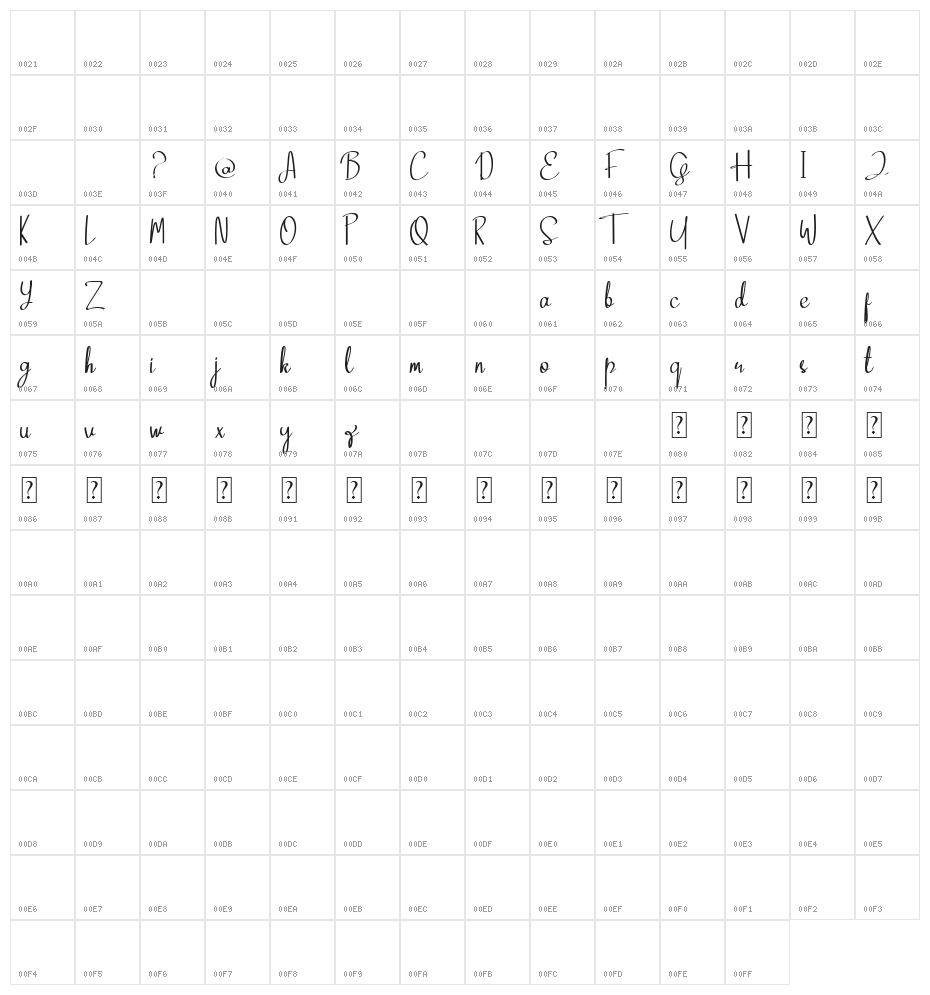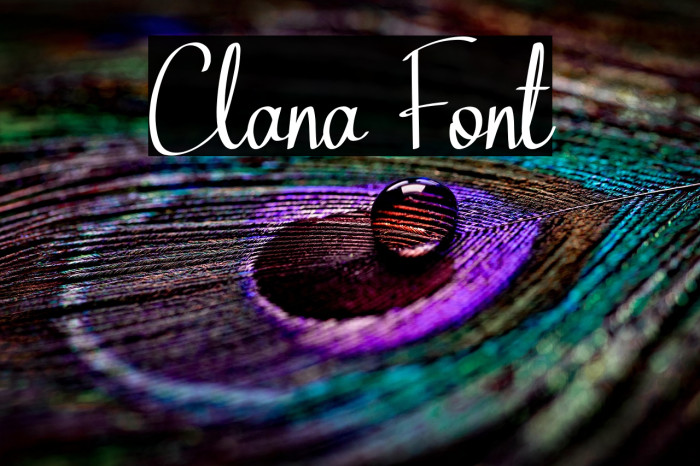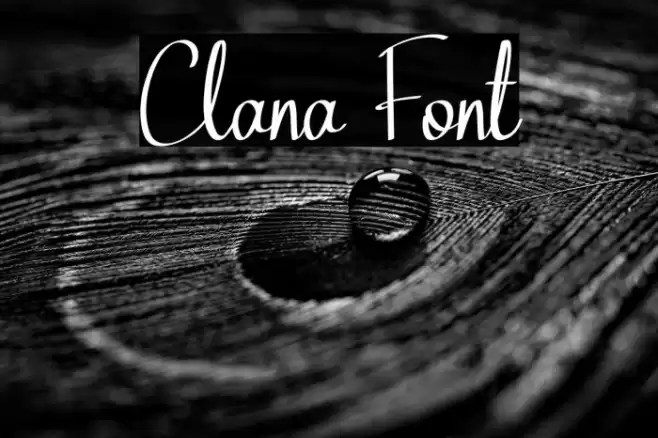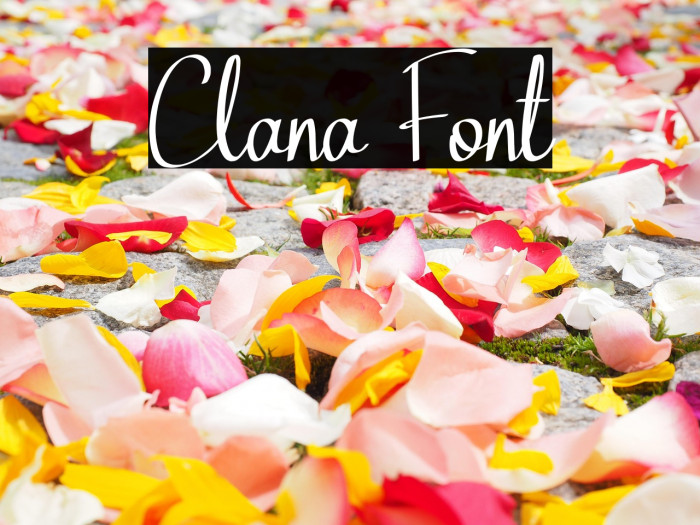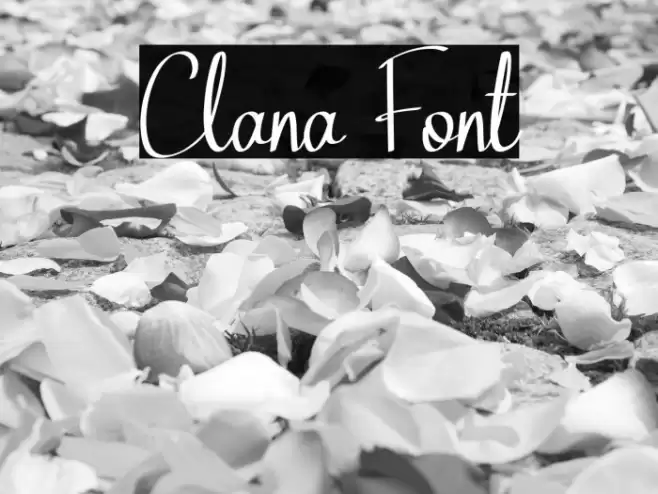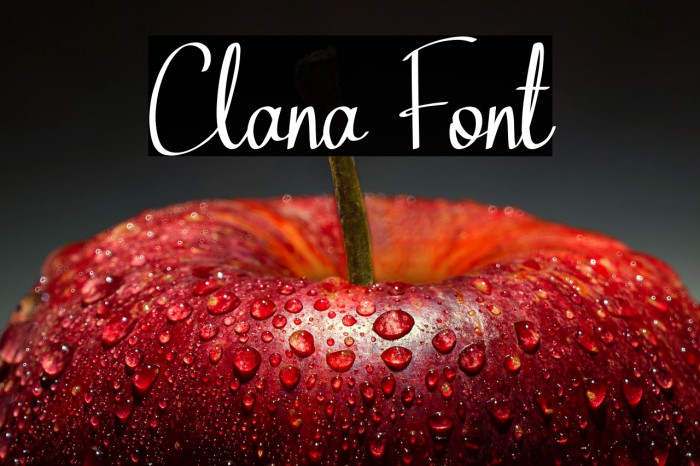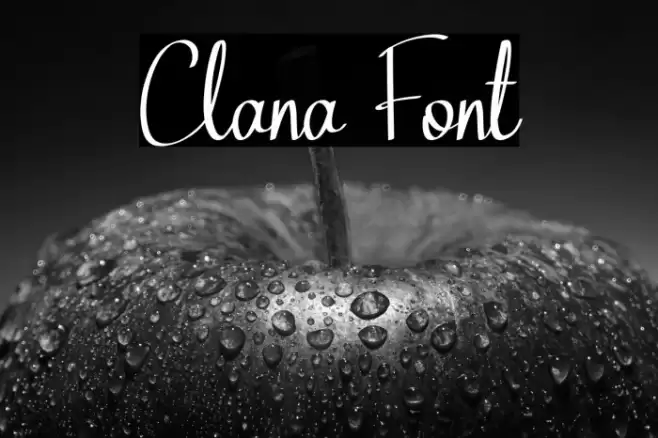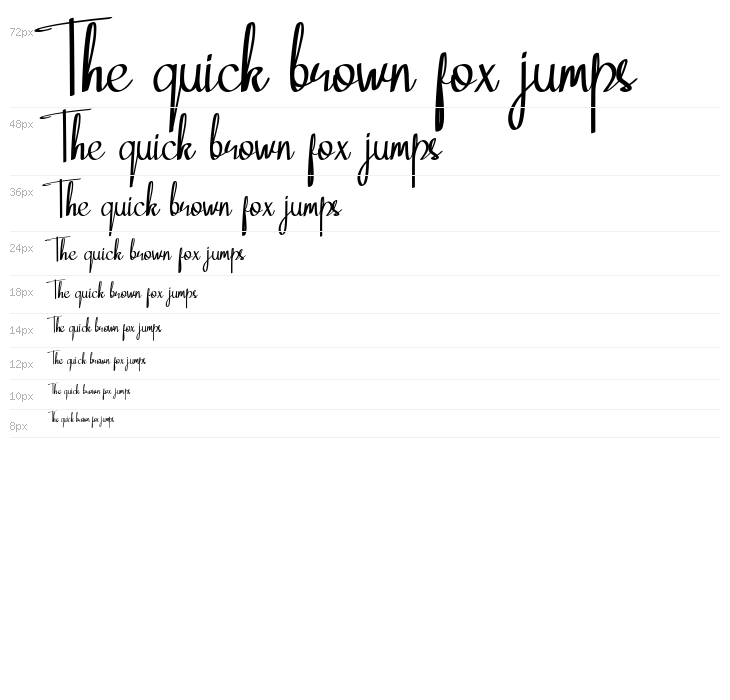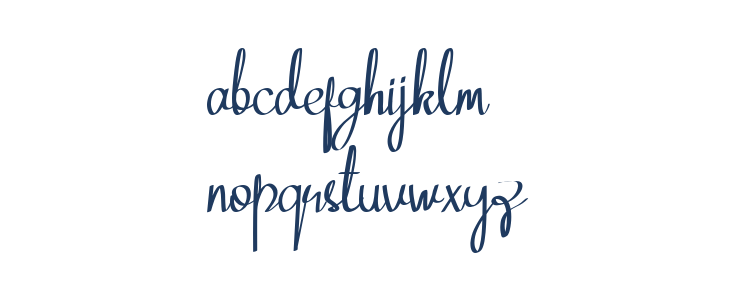
Clana Font
Clana Description
This font features a playful and artistic script style with a handwritten appearance. The uppercase letters are tall and elegant, with a slight slant that adds a dynamic flow. The lowercase letters maintain a consistent style, with smooth curves and a casual, yet refined look. The characters are closely spaced, enhancing the cohesive and fluid nature of the design. The font's unique charm is further accentuated by its high contrast in stroke thickness, which adds depth and visual interest. This font is perfect for projects that require a personal touch, such as invitations, greeting cards, or branding materials.